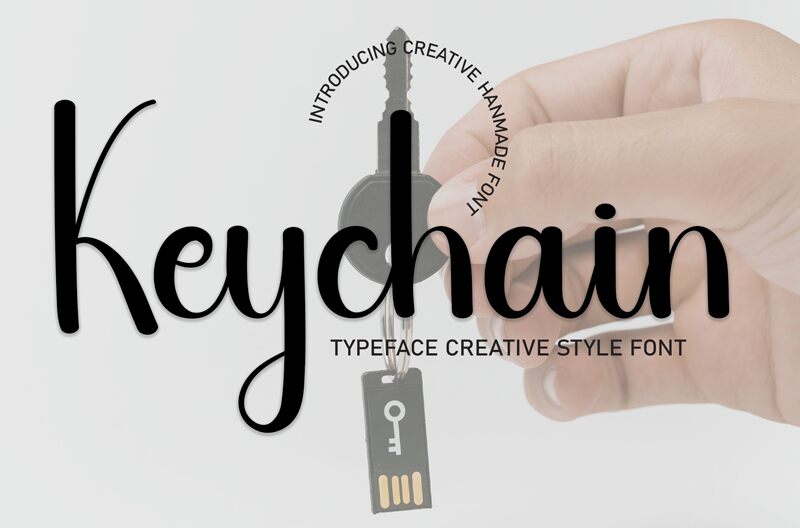
Keychain font by Andi Moz gracefully encapsulates a balance of fluid motion and casual elegance within a script context. The approachable aesthetics and modern script style of this free font make it suitable for contemporary applications. With its friendly tone, it effortlessly mixes informal branding with a personal touch that will highlight your projects and connect with viewers.
Think of Keychain font for informal branding, personal projects, art diaries, editorial covers, invitations, social media posts, or even small commercial endeavors. The subtle handmade appeal can also enhance authentic restaurant menus, handcrafted product labels, or cozy book covers.
This is a sweet and friendly handwritten display font. Cute and fun, this free font is ideal for writing wedding invitations, cards, or any other design that might need a playful touch!